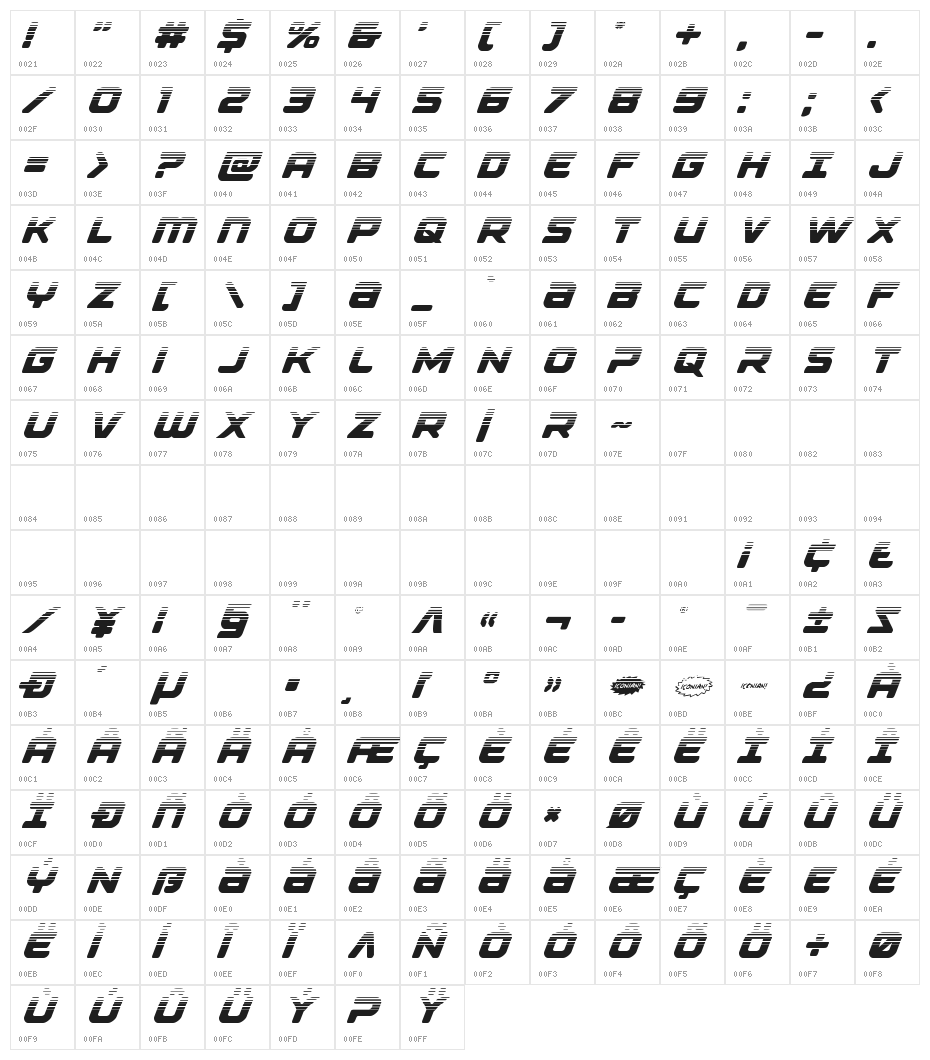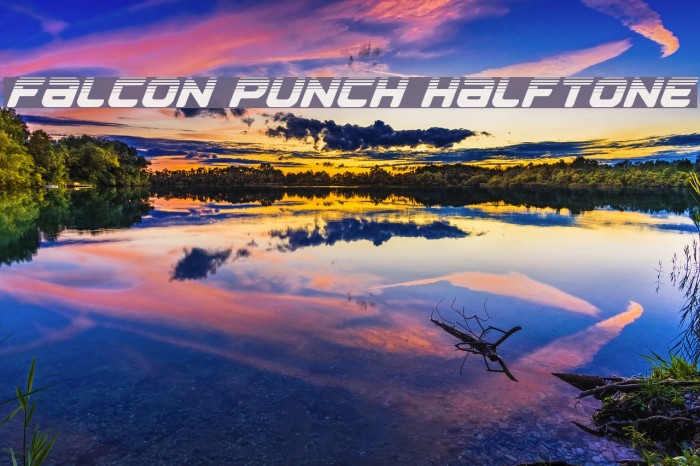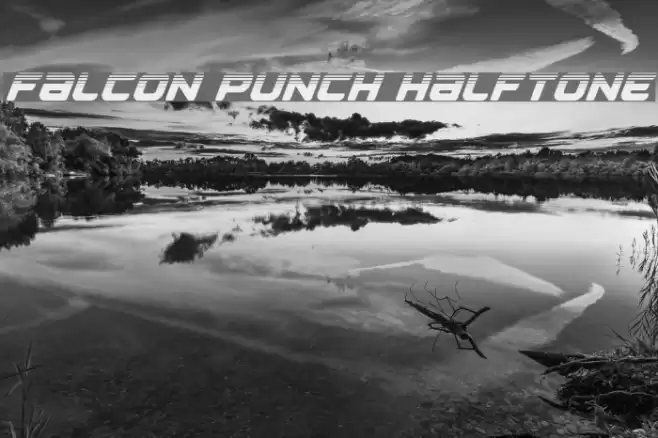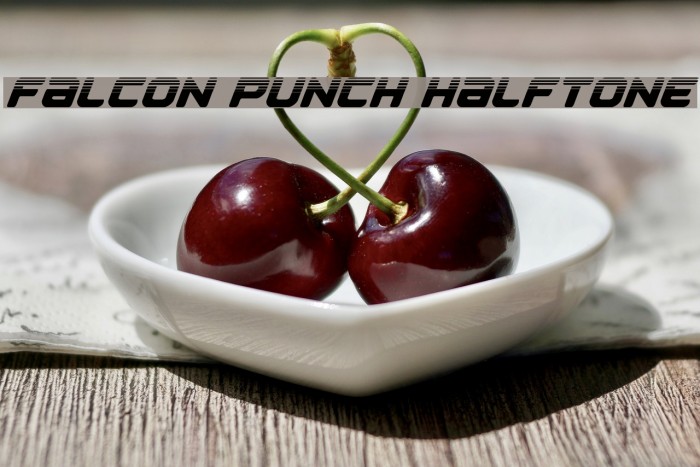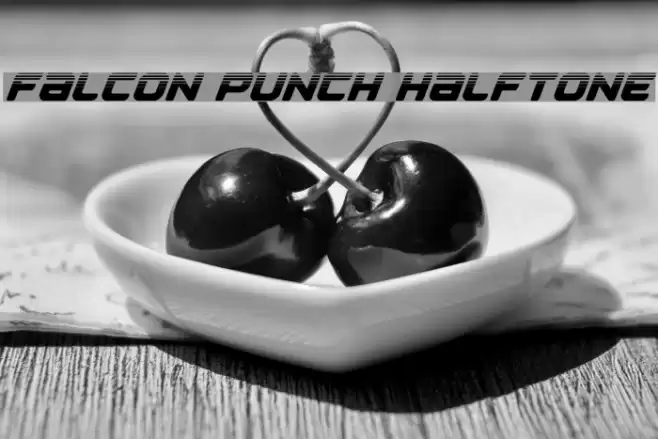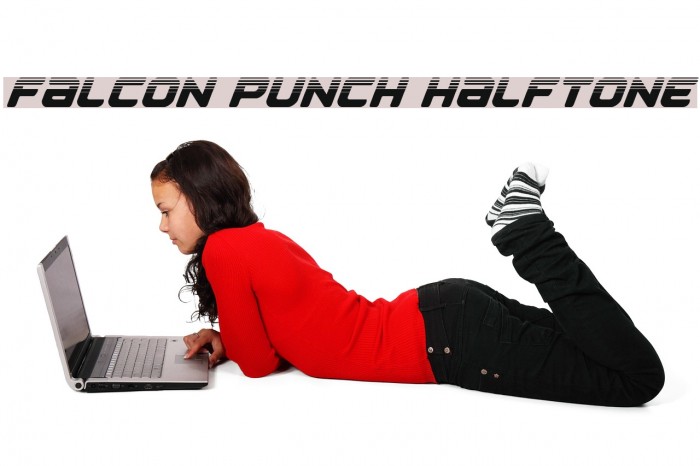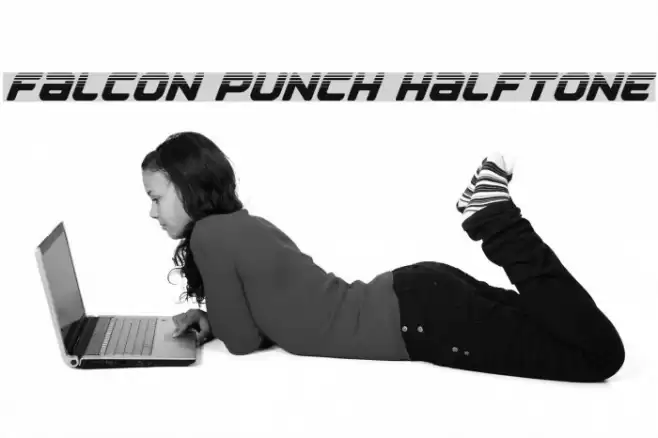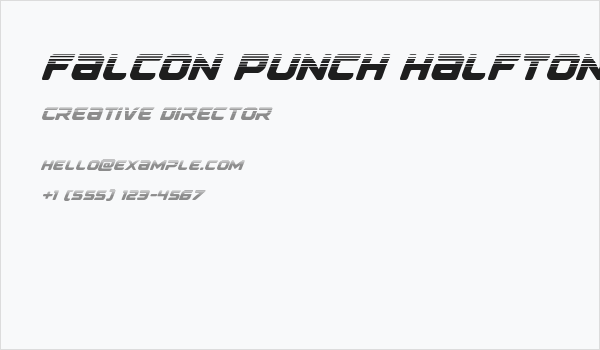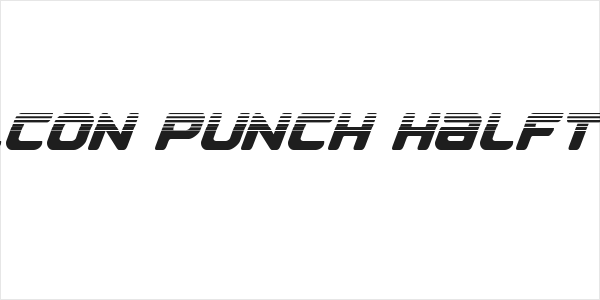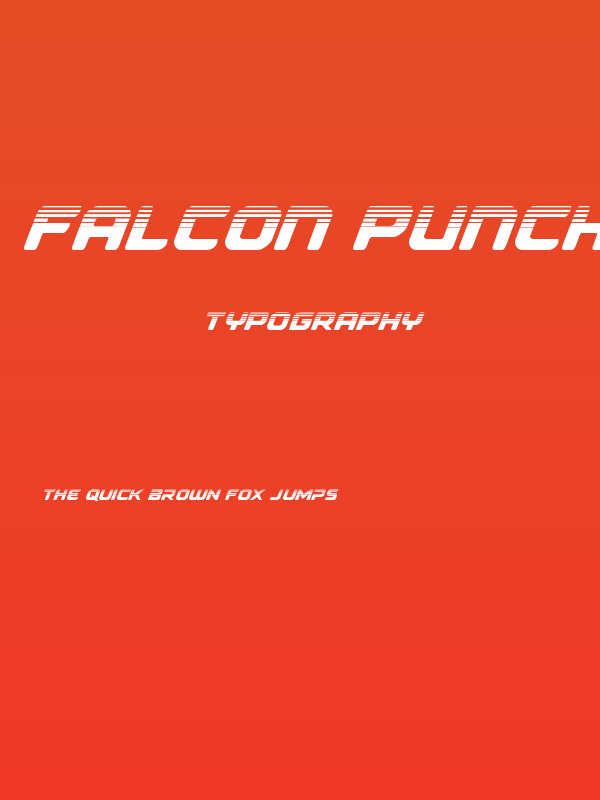
Falcon Punch Halftone Font
Falcon Punch Halftone Description
This font features a bold and dynamic design with a futuristic and sporty aesthetic. The characters are constructed with a unique halftone effect, creating a sense of motion and energy. The uppercase and lowercase letters maintain a consistent style, with sharp angles and a slightly italicized slant. The numbers and special characters follow the same design principles, ensuring uniformity across all glyphs. The font's boldness and distinctive style make it ideal for projects that require a strong visual impact.
| Proposed Projects | Ideal for sports branding, video game titles, posters, and dynamic advertising campaigns. |